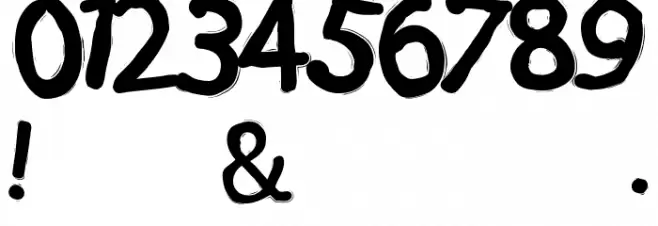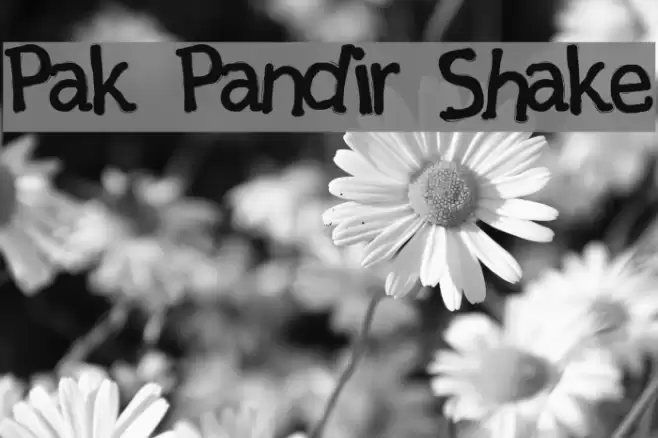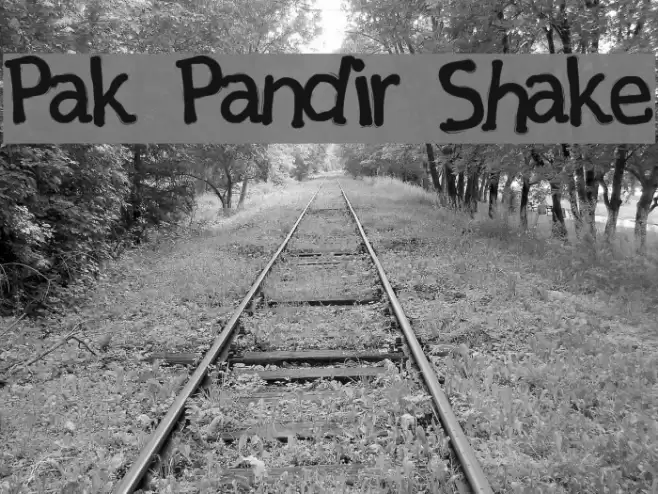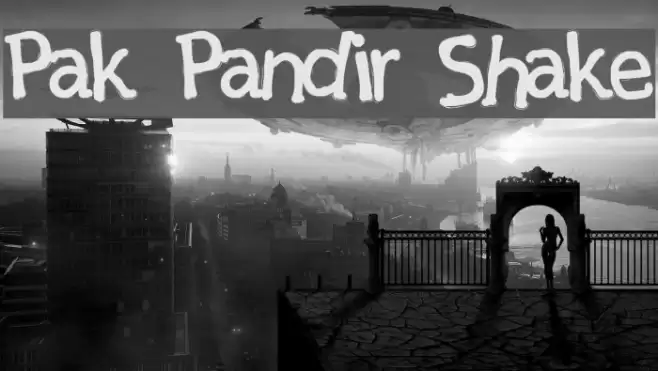
Pak Pandir Shake Font
Pak Pandir Shake Description
This playful and dynamic font features a hand-drawn style with a slightly irregular and wavy appearance, giving it a lively and informal feel. The characters are bold and rounded, with a whimsical touch that adds personality and charm. The uppercase and lowercase letters maintain a consistent style, while the numbers and special characters complement the overall design. This font's unique character makes it suitable for creative and fun projects, where a casual and approachable tone is desired.
| Proposed Projects | Ideal for children's books, comic strips, playful branding, and casual invitations. |